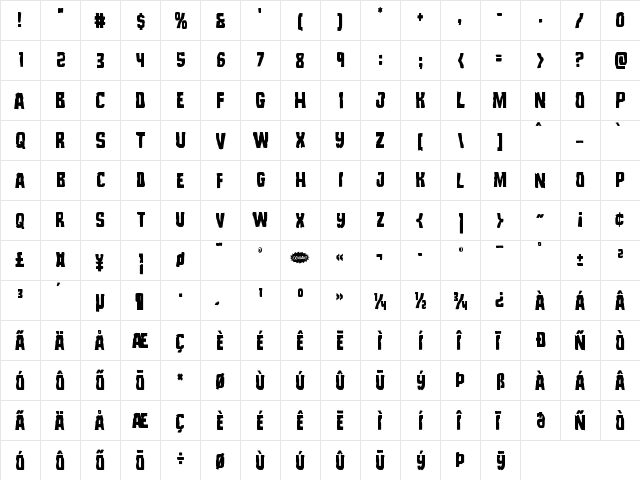
Monster Hunter Condensed Condensed
Design Context for Monster Hunter Condensed Typeface
Monster Hunter Condensed is a composed and adaptable typeface that performs quietly and consistently across a wide range of design contexts. Its narrow stance lets it pack a punch even in space-constrained designs.
Pro Tip: Use Monster Hunter Condensed in both headline and body roles to test its range before committing to a single application.